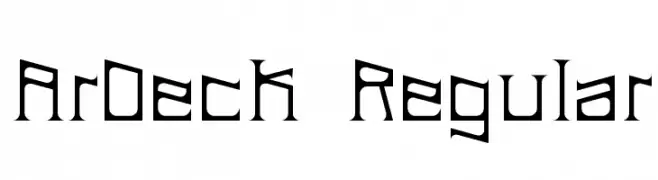
A playful, hand-drawn font with elongated, narrow characters and a whimsical style.
( Frances Jimenez )
A bold, playful font with thick, irregular strokes and a hand-drawn appearance.
( Frances Jimenez )
A playful, hand-drawn font with thin, uneven strokes and a whimsical style.
( Creative Media Lab - creativemedialab.net )
A playful, hand-drawn font with a whimsical and dynamic style.
( Hanoded - David Kerkhoff - www.hanodedfonts.com )
A playful, hand-drawn font with a whimsical and friendly style.
( Gaelleing )
A playful, hand-drawn font with rounded, whimsical characters.